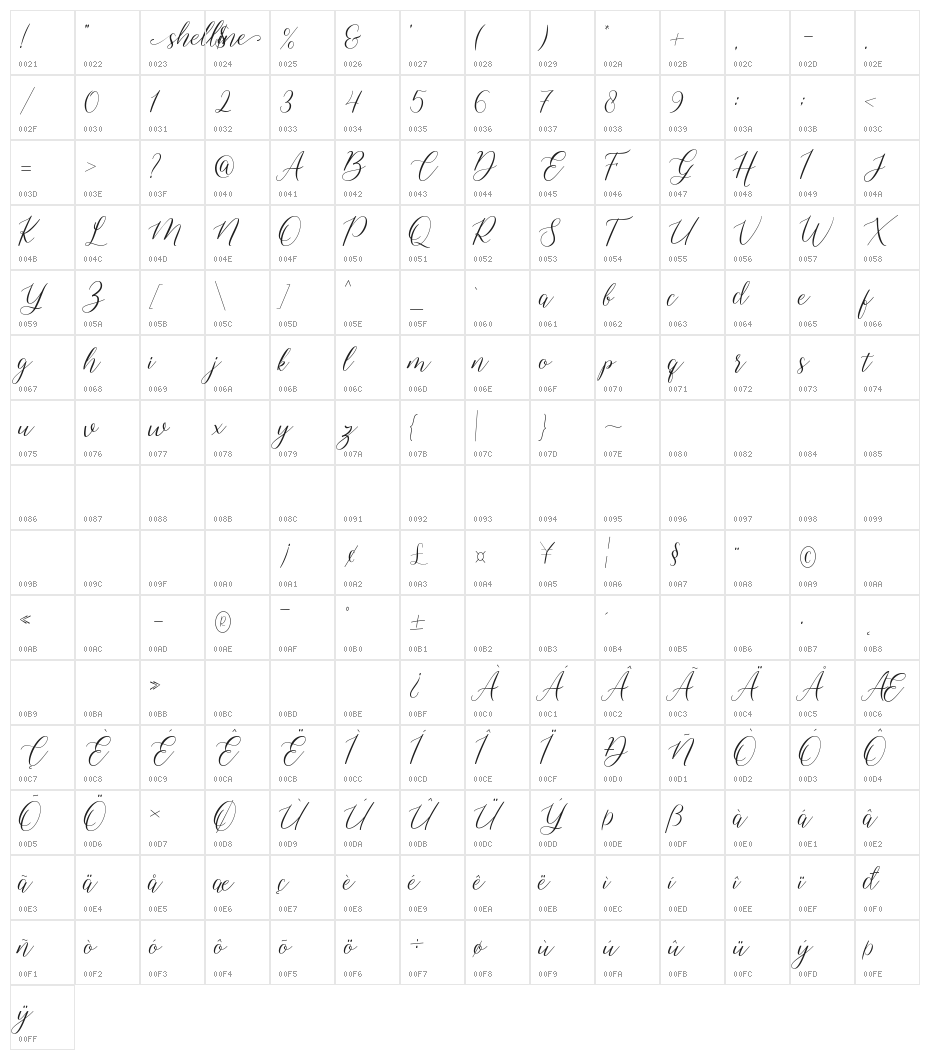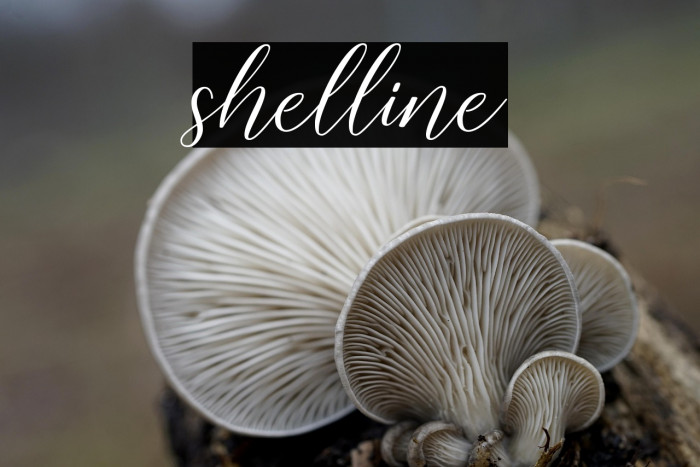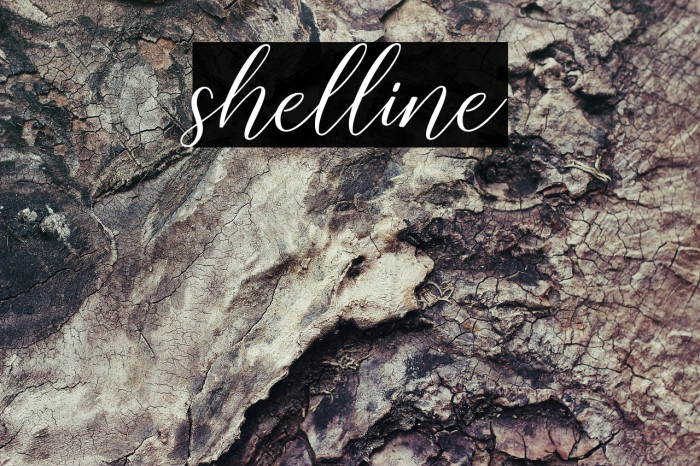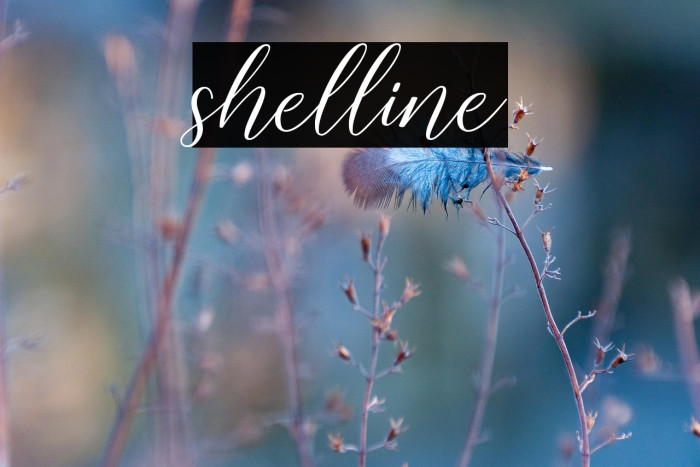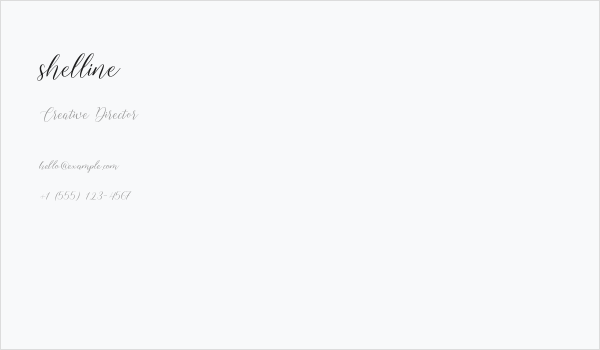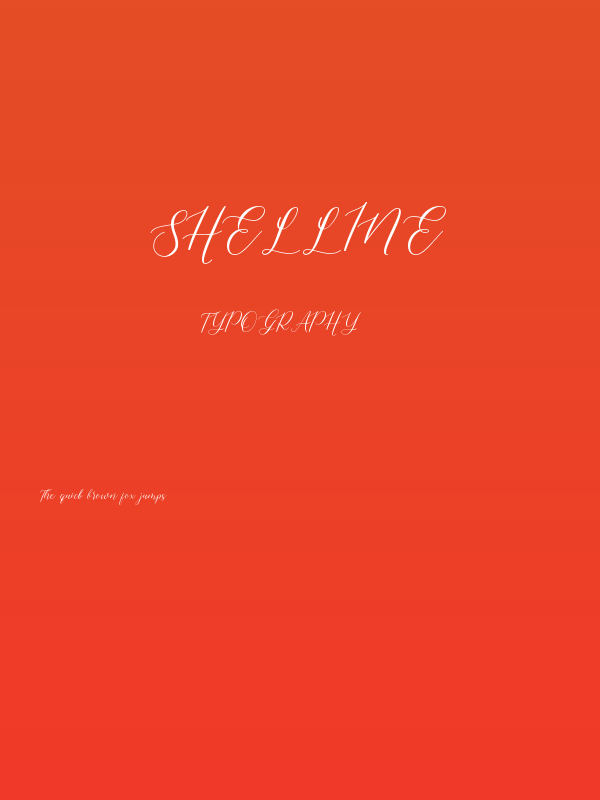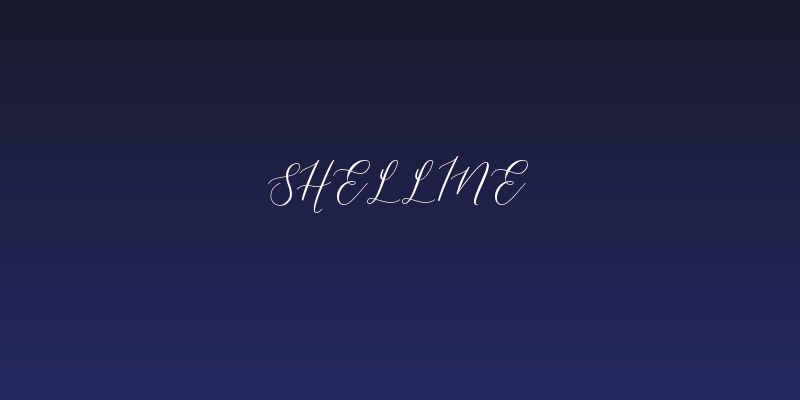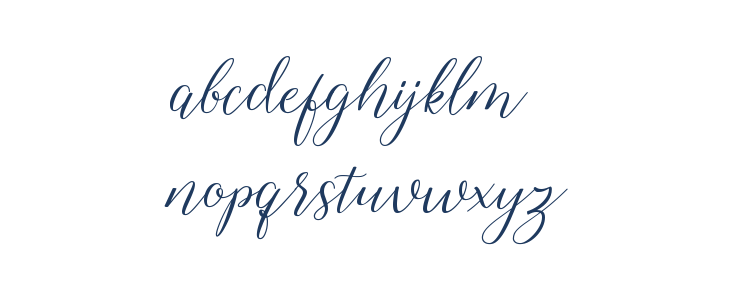
shelline Font
shelline Description
This elegant script font features flowing, cursive strokes that convey a sense of sophistication and grace. The uppercase letters are characterized by their sweeping lines and delicate curves, while the lowercase letters maintain a consistent slant and fluidity. The numerals are designed to complement the letterforms, with similar curves and a harmonious style. Special characters are integrated seamlessly, enhancing the font's versatility. This font is ideal for projects that require a touch of elegance and refinement, such as invitations, branding, and decorative elements.
| Overall Style | Elegant |
| Use Case | Logos, Invitations, Decorative text |
| Proposed Projects | Ideal for wedding invitations, elegant branding, greeting cards, and decorative designs. |